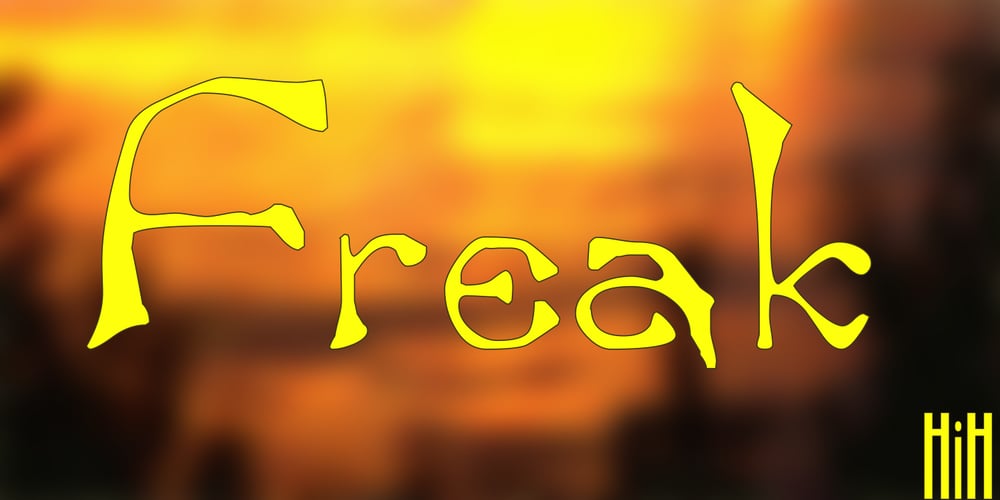
Freak Font Family was designed by published by HiH. Freak contains 2 styles and family package options. Freak was originally released by The Great Western Type Foundry in 1889. According to Maurice Annenberg, Great Western became Barnhart Brothers & Spindler when the Barnhart brothers bought out the Toepfer family in 1868.The plant superintendent, Charles Spindler, became Secretary of the new firm. Specimen books as late as 1899 show the name Great Western alongside the BB&S name. At some point, prior to 1925, Freak was renamed “Bamboo” by BB&S. It was delisted when BB&S was absorbed by ATF in 1929. Listed in McGrew under “Bamboo”.